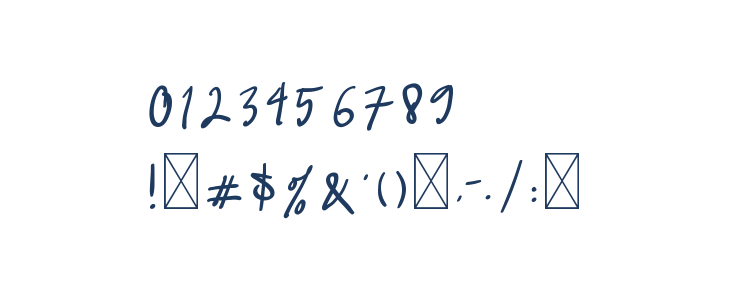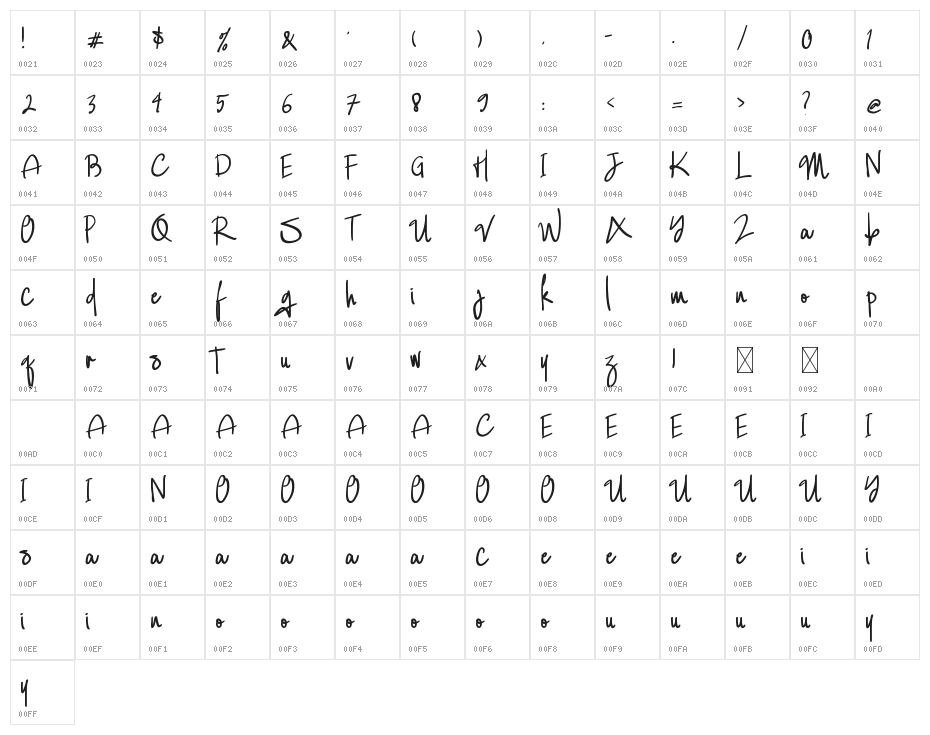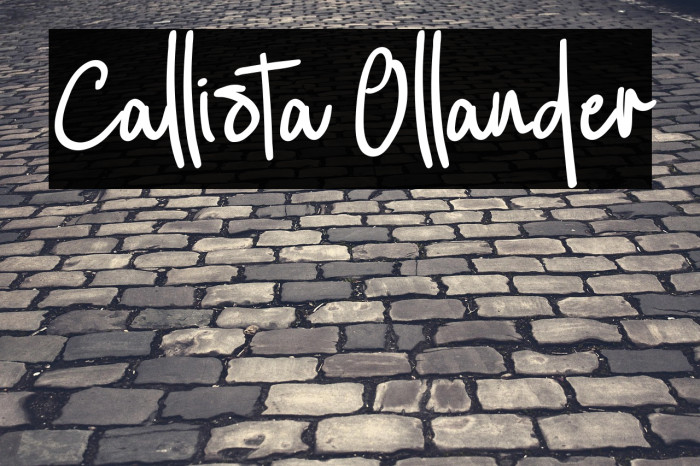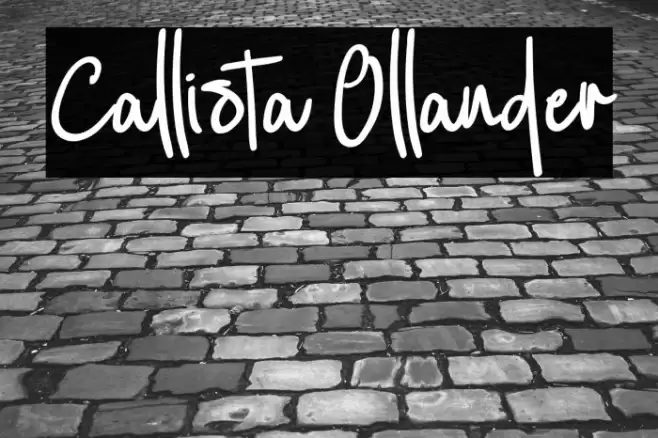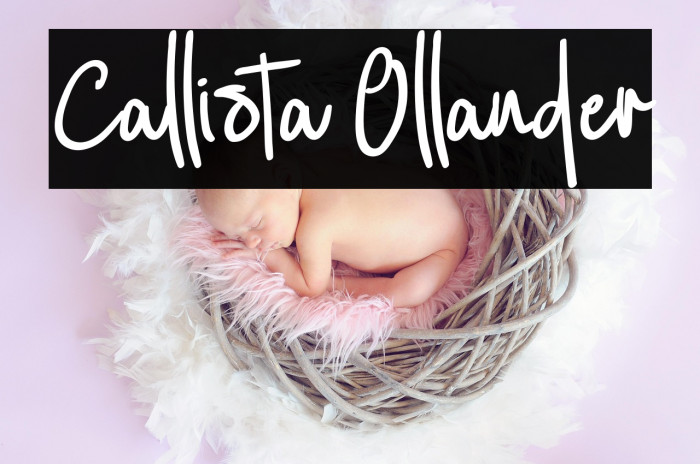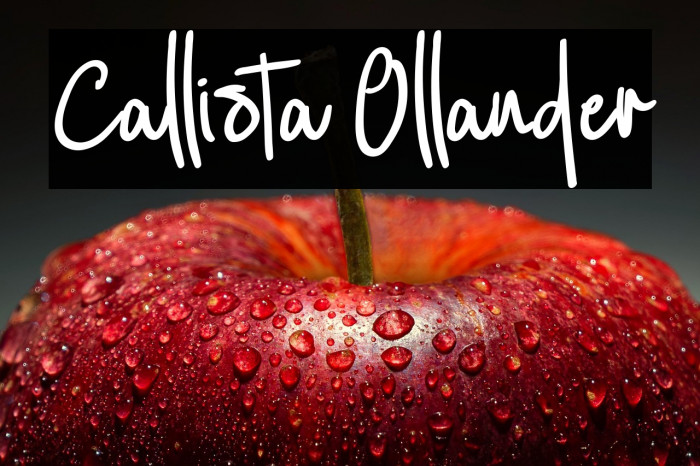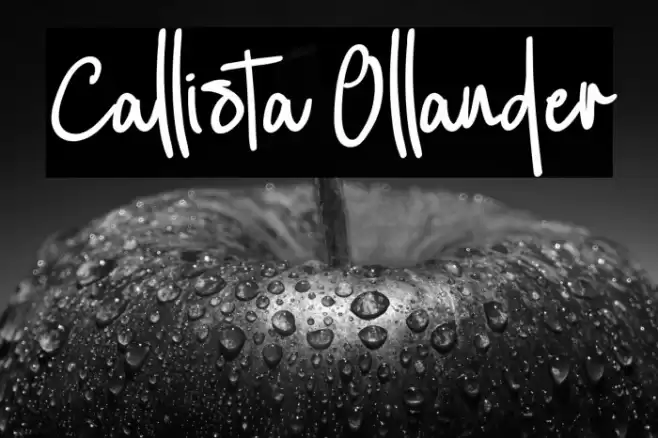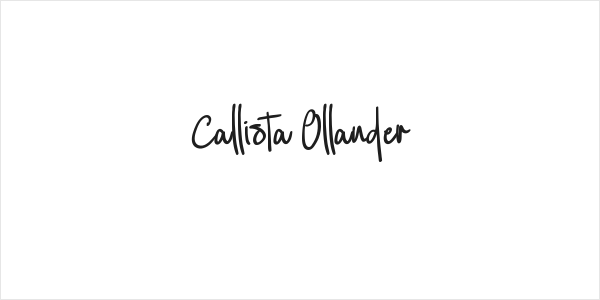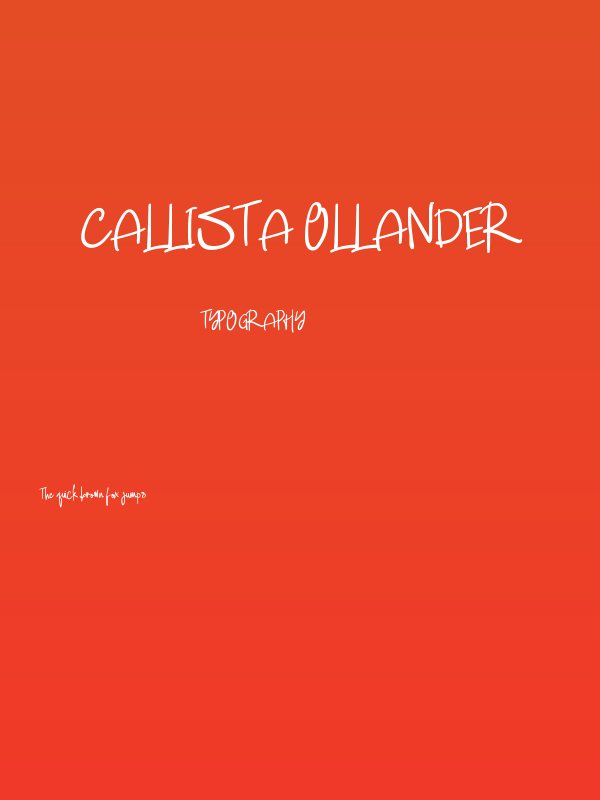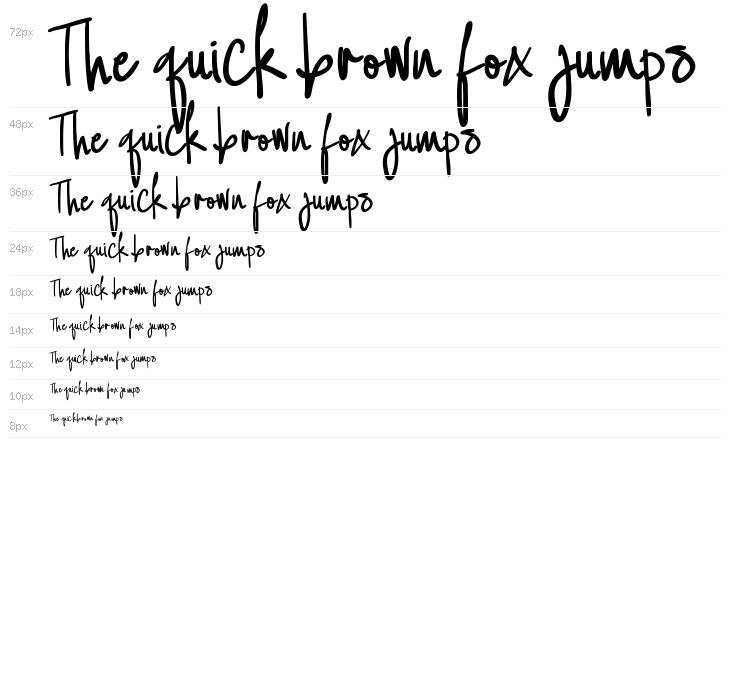
Callista Ollander Font
Callista Ollander Description
This font exudes a lively and dynamic handwritten style, characterized by its fluid and slightly irregular strokes. The uppercase letters are bold and expressive, while the lowercase letters maintain a consistent flow with a playful touch. The numerals are clear and distinct, matching the overall energetic feel of the font. Special characters are integrated seamlessly, adding to the font's versatility. The strokes vary in thickness, providing a natural and organic appearance that mimics authentic handwriting.
| Proposed Projects | Ideal for creative projects such as greeting cards, invitations, personal branding, and artistic posters. |